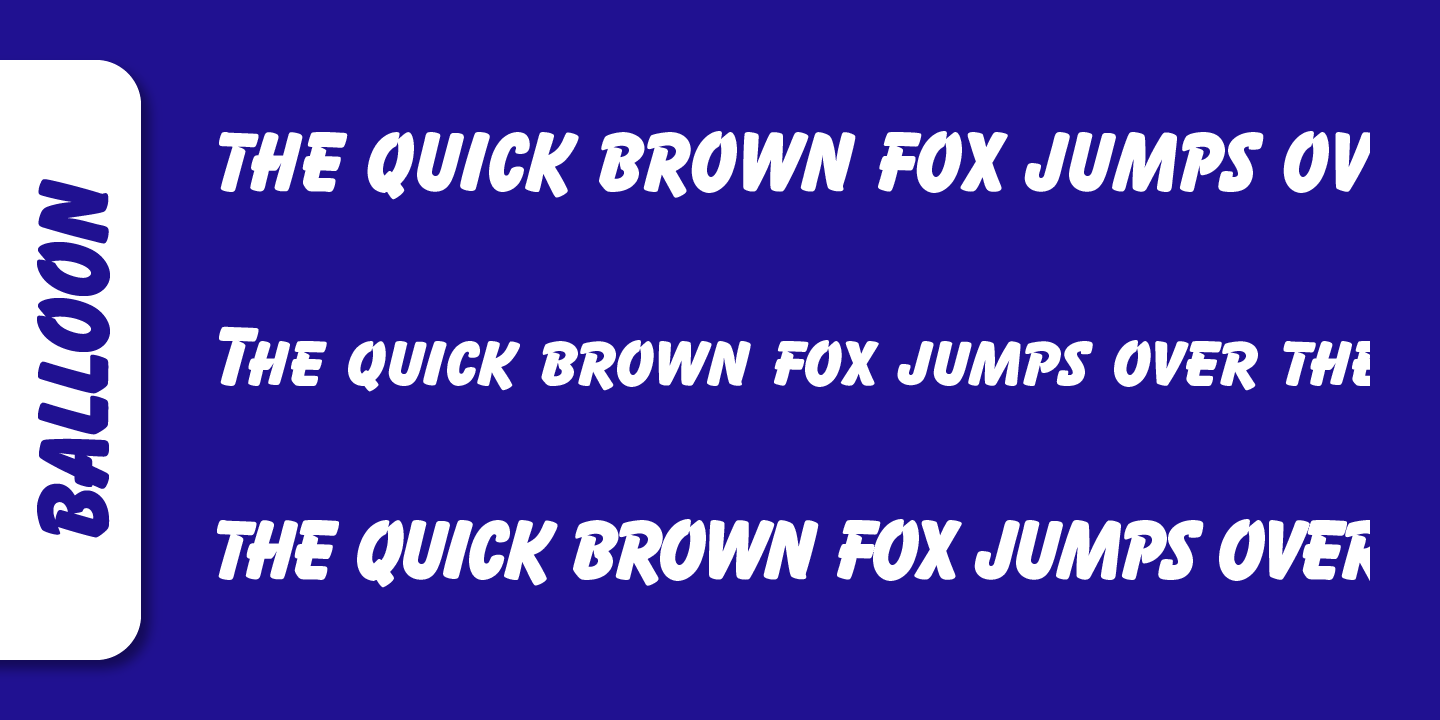
The Balloon Pro Font is perfect for various design applications including party planning branding, children's entertainment logos, balloon artist marketing, celebration event graphics, fun birthday party invitations, festive carnival signage, playful balloon shop packaging, and joyful celebration materials. This buoyant typeface works exceptionally well for party entertainment brands and projects requiring light-hearted fun with festive celebration appeal.
What makes Balloon Pro Font exciting is its cheerful and buoyant character that instantly lifts spirits and captures the floating joy of balloons with professional celebration expertise. The font features rounded letterforms with balloon-inspired curves and festive aesthetics that evoke feelings of happiness, celebration, and uplifting joy. Its buoyant styling and balloon-professional appearance make it perfect for brands that want to create memorable party experiences and connect with customers who love celebrations and festive balloon decorations.
The Balloon Pro Font family includes multiple weights and styles, offering designers flexibility for diverse celebration applications. The family typically consists of regular, bold, light, and inflated variations, along with balloon-inspired decorative elements and festive ornaments, providing comprehensive coverage for projects that need both fun and professional quality across different party contexts.
Whether you're working on party entertainment services, celebration planning, or festive event campaigns, Balloon Pro Font Free Download delivers the uplifting quality and visual joy that modern celebration designers seek. The font's balloon professional design combined with its excellent readability makes it an essential tool for creating compelling visual communications that celebrate life's special moments and bring the floating spirit of balloon-filled celebrations to life.